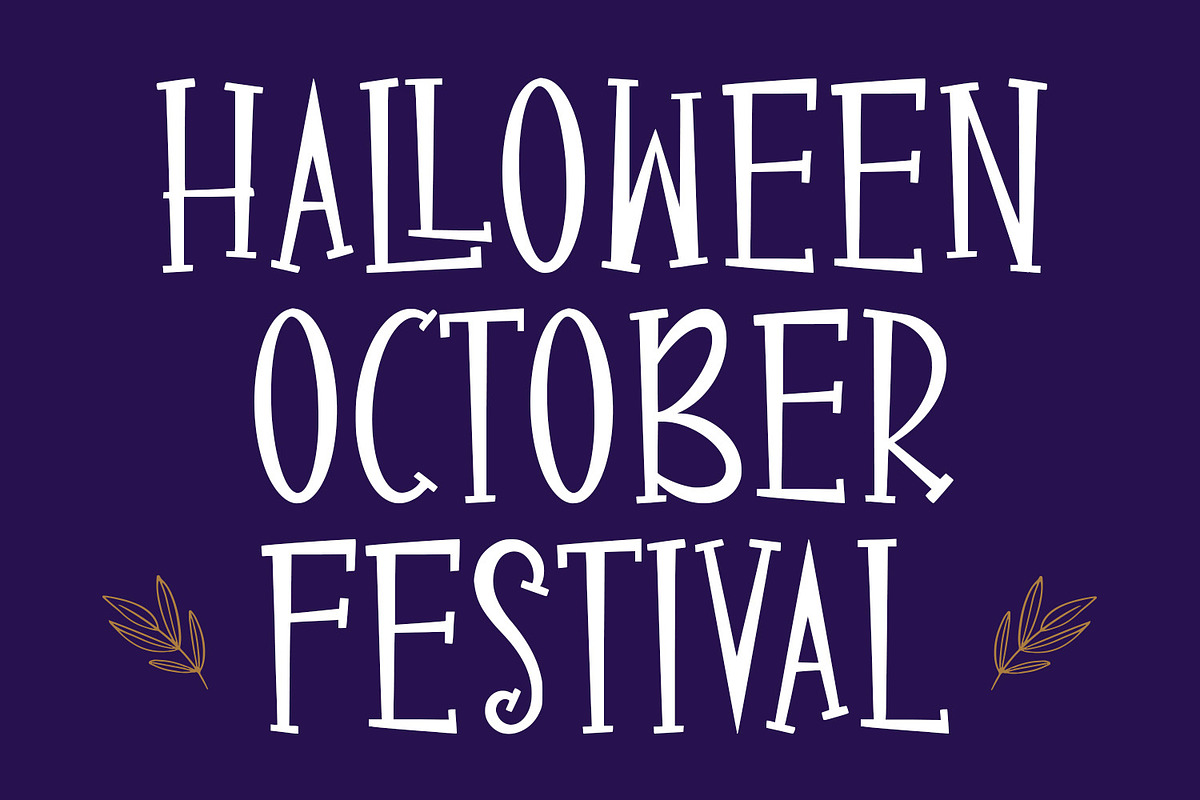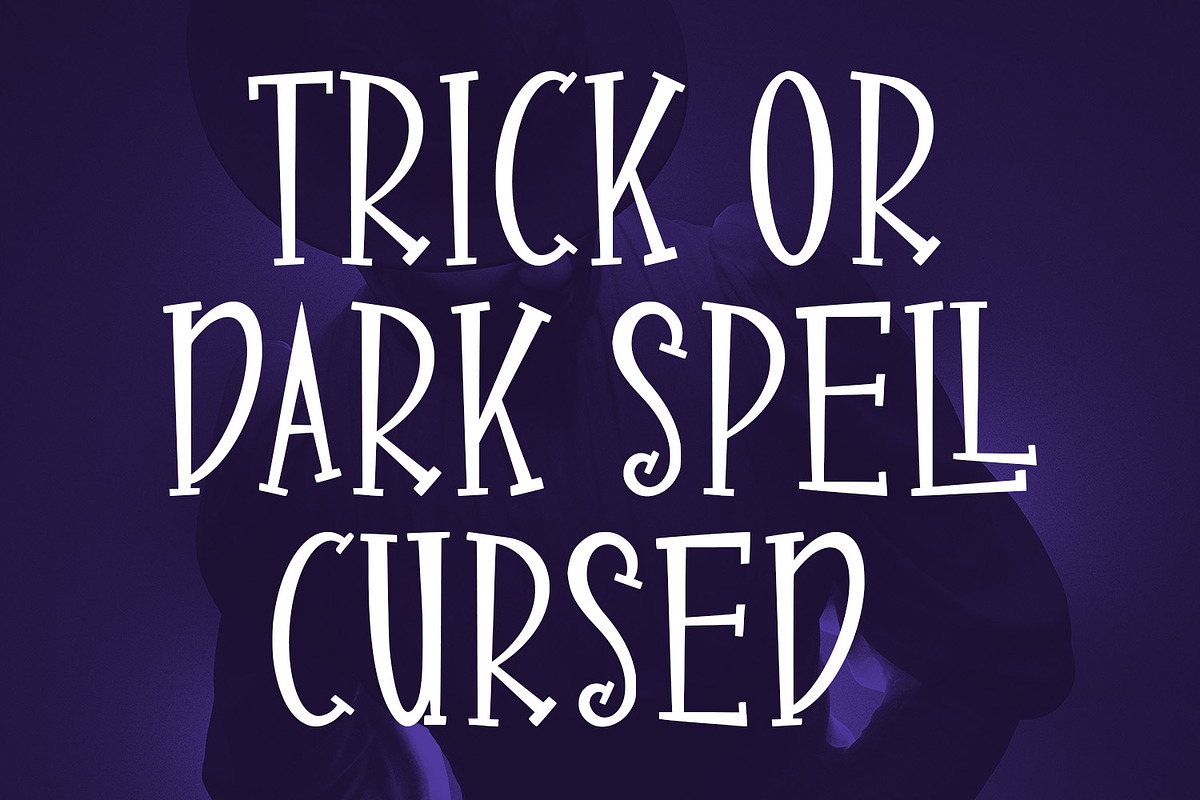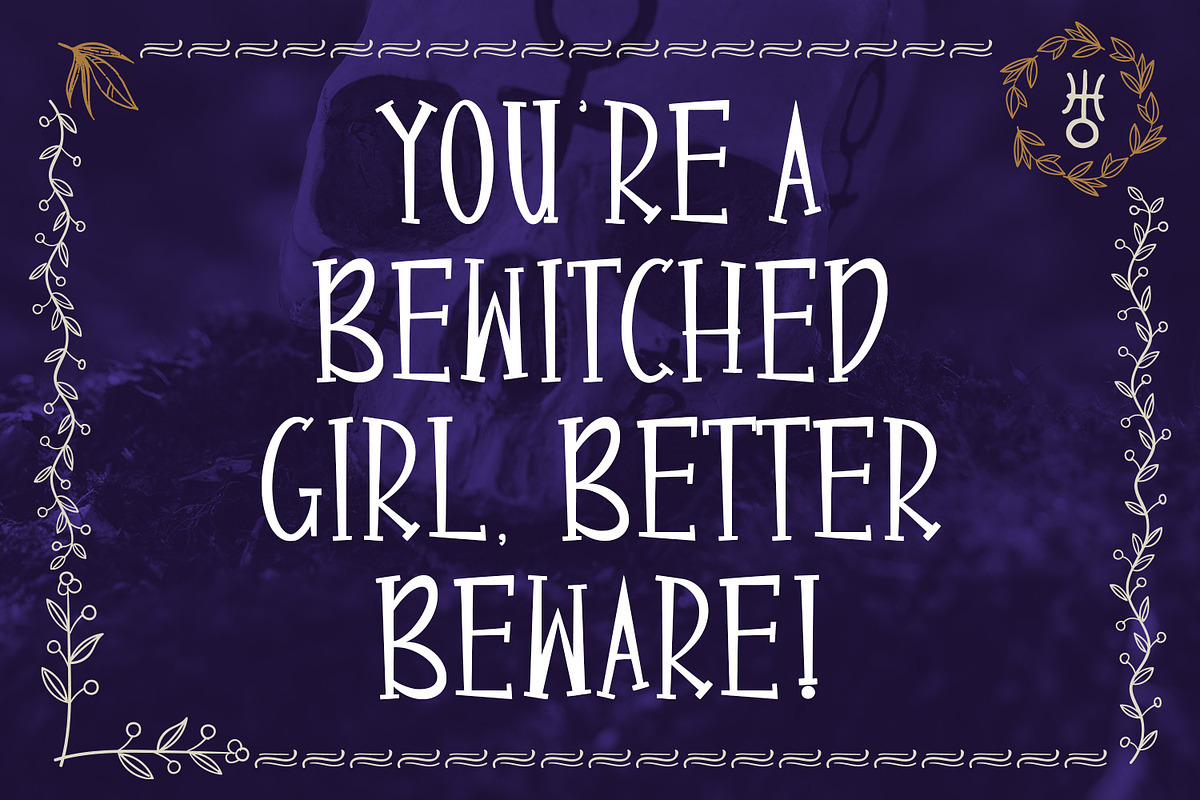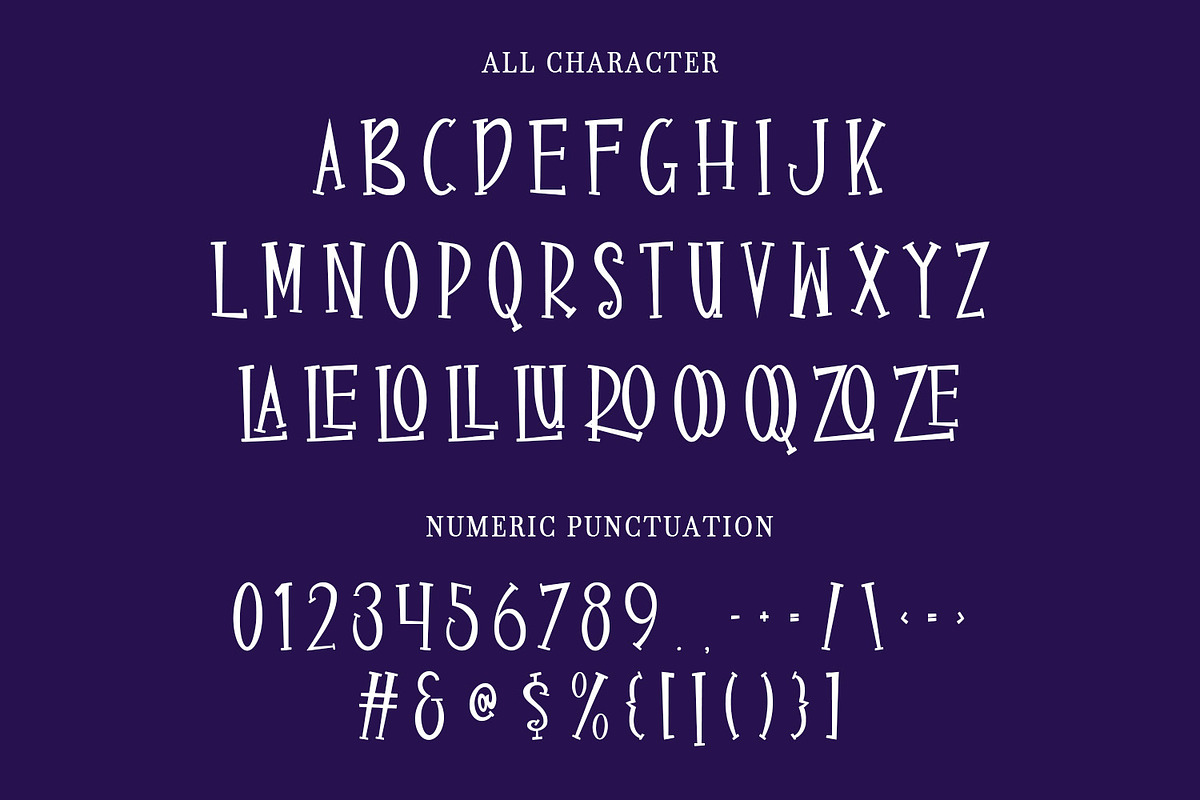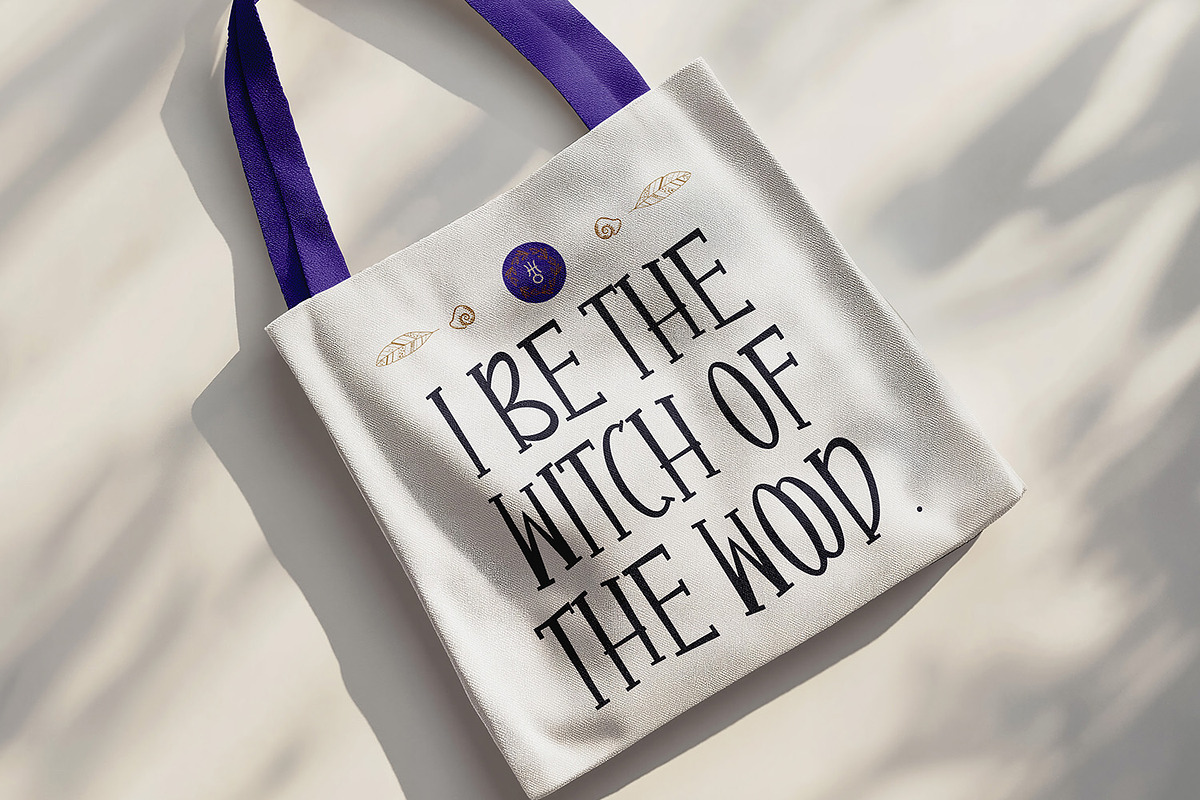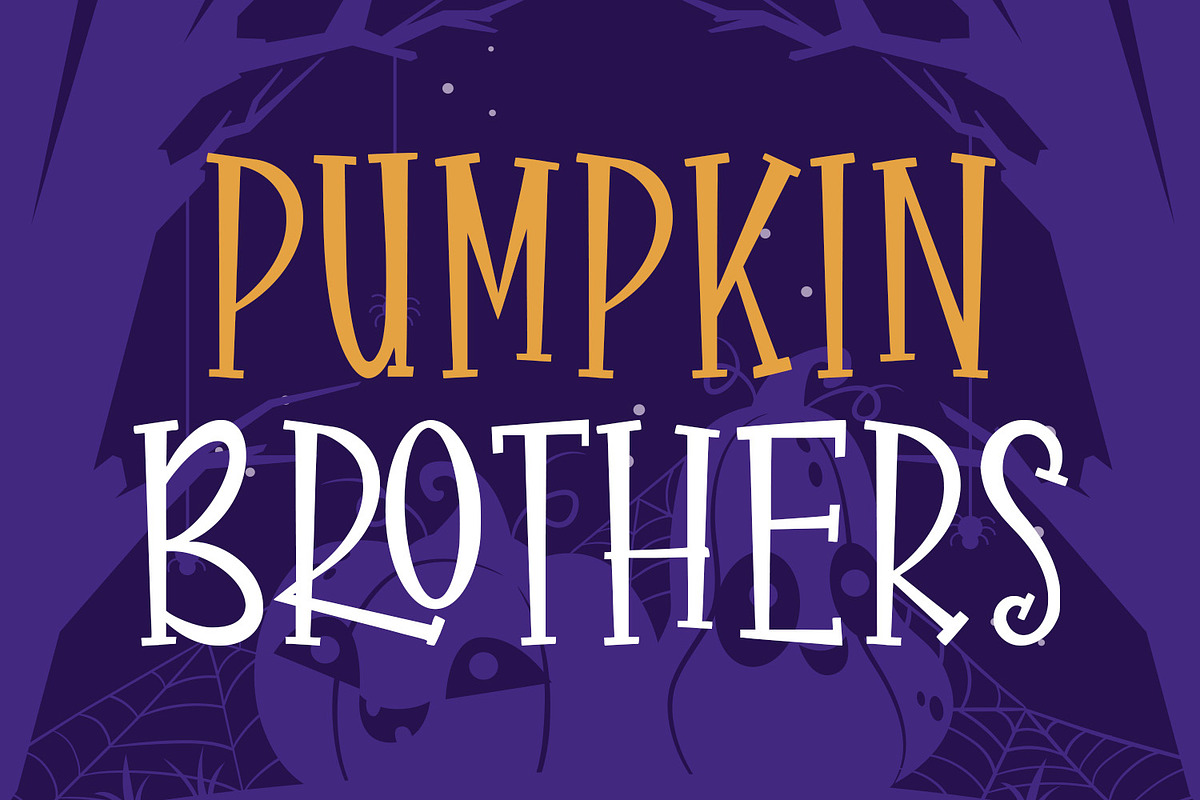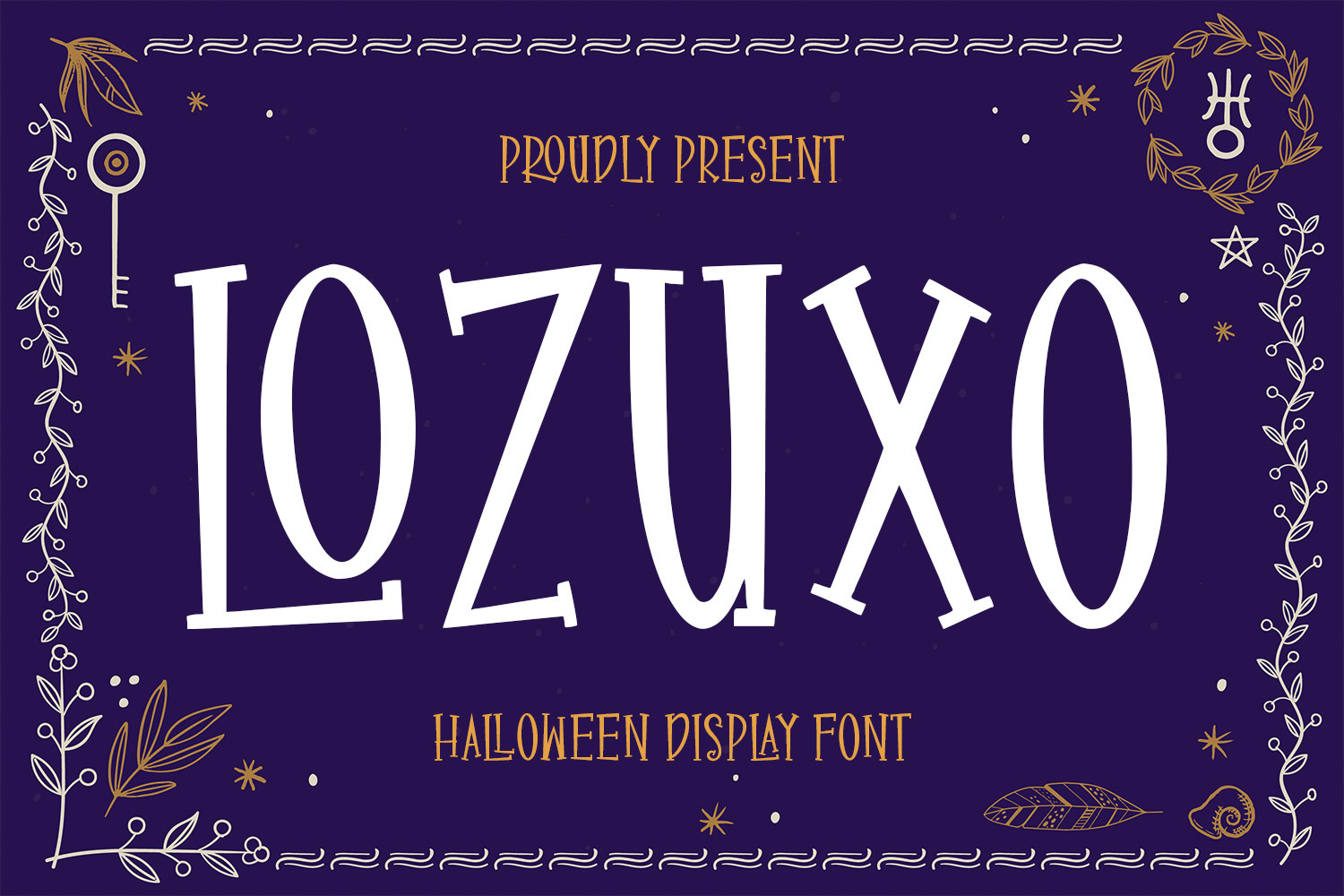
Lozuxo Quirky Playful Halloween Font
Lozuxo is a quirky and playful Halloween display font with a fun yet spooky personality. Its irregular shapes and whimsical curves make it perfect for Halloween parties, spooky invitations, magic-themed posters, witchcraft packaging, or playful horror branding.
This font blends mystery and charm—bold enough to catch attention, yet friendly enough to feel fun and magical. With Lozuxo, your design will instantly bring out the Halloween spirit—complete with a touch of mischief and fantasy.
Whether for seasonal campaigns or year-round spooky projects, Lozuxo is your go-to font for creative, magical, and hauntingly beautiful designs.
- Ligature Style